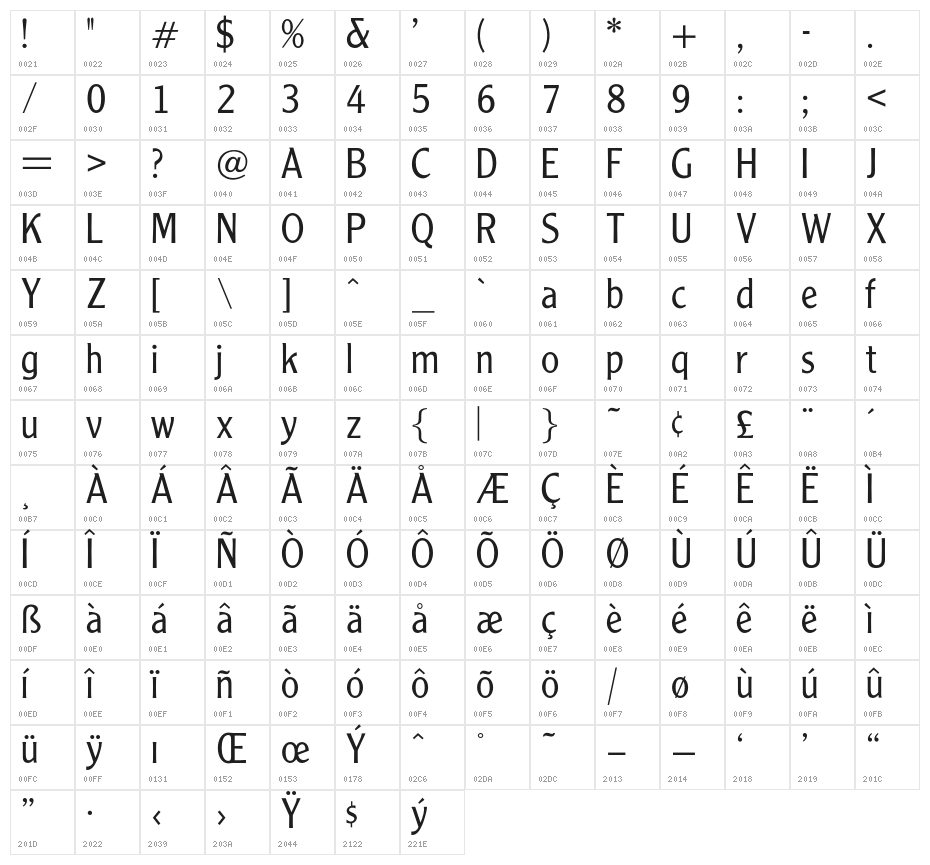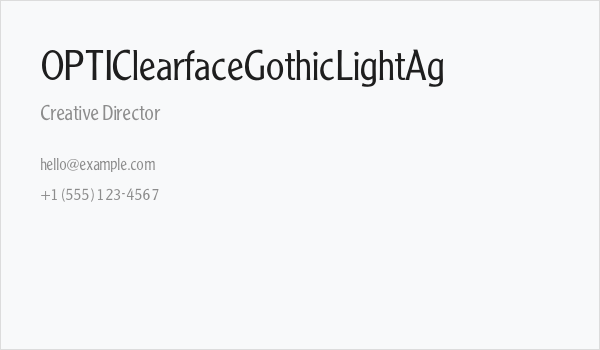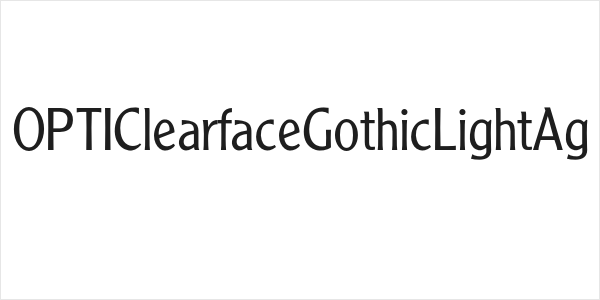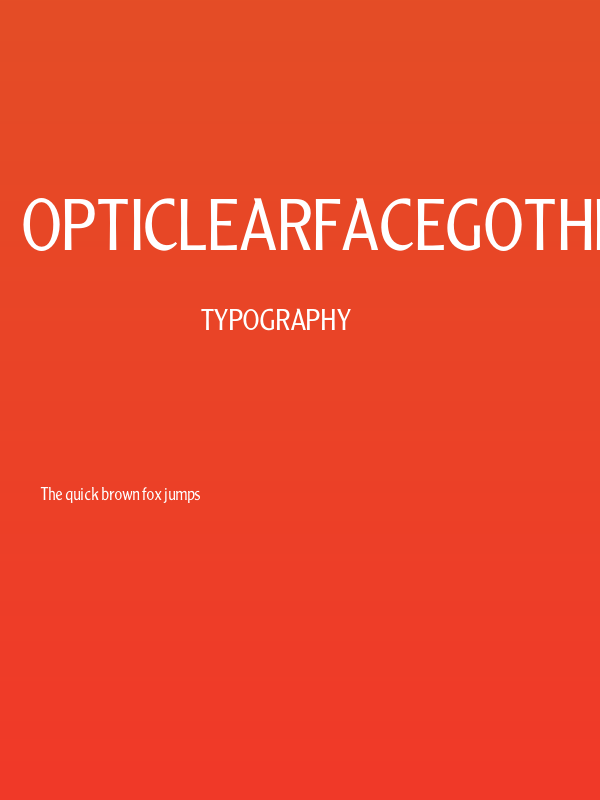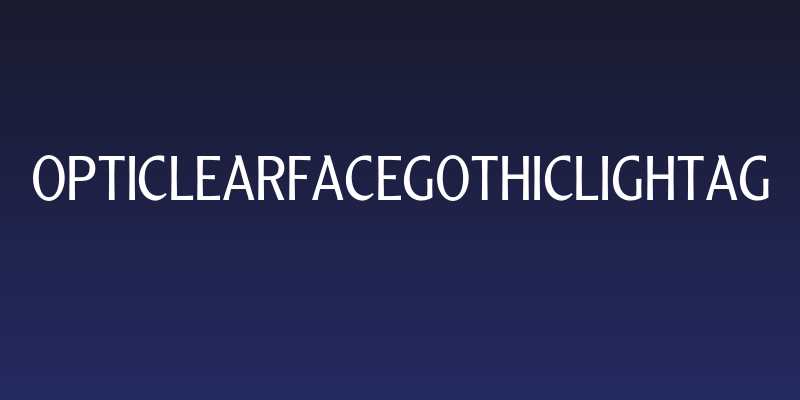
OPTIClearfaceGothicLightAg Font
OPTIClearfaceGothicLightAg Description
This typeface features a clean and modern sans-serif design with a geometric structure. The characters are well-balanced with a uniform stroke width, giving it a sleek and professional appearance. The uppercase letters are bold and assertive, while the lowercase letters maintain a consistent and harmonious flow. The numerals are clear and easily distinguishable, making them suitable for various applications. The special characters are designed to complement the overall style, ensuring versatility in use. This font is ideal for projects that require a contemporary and straightforward aesthetic.
| Proposed Projects | Ideal for corporate branding, web design, editorial layouts, and signage. |